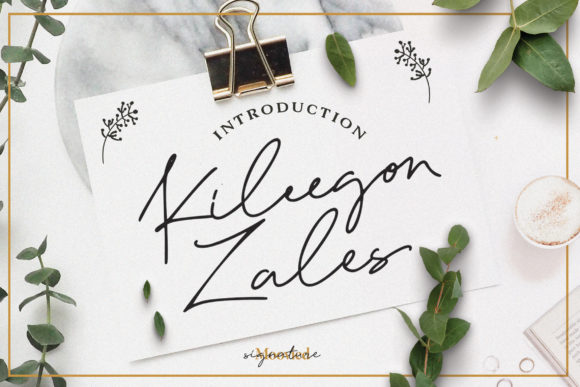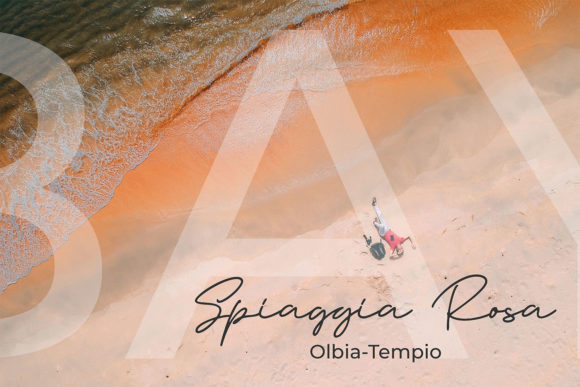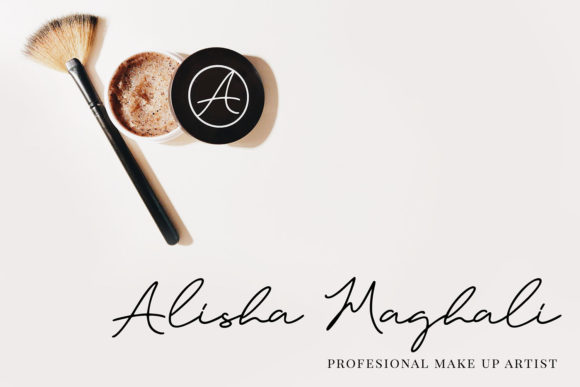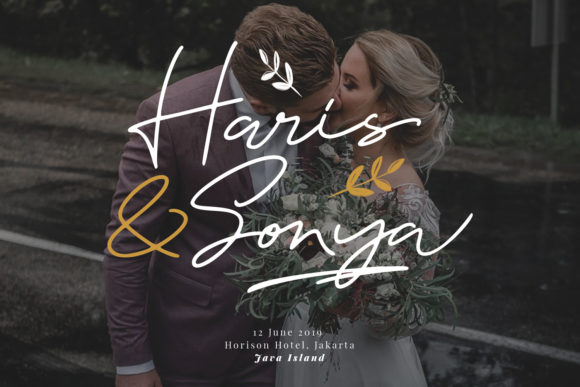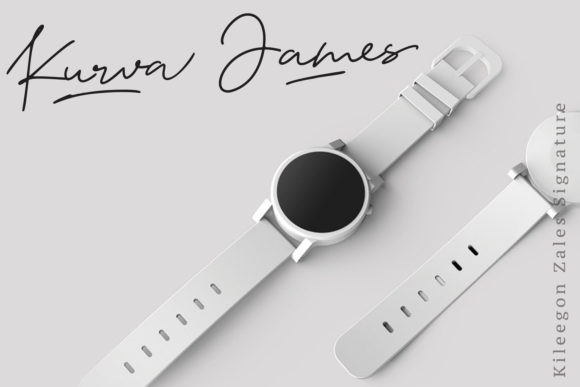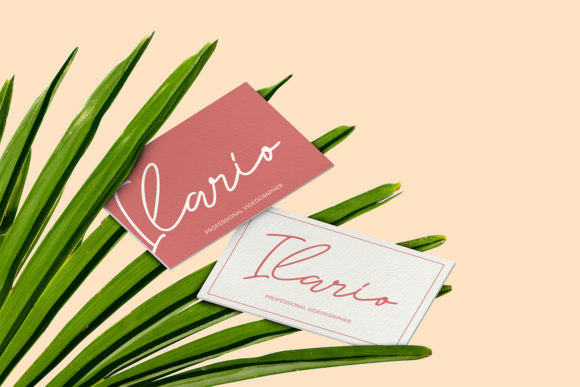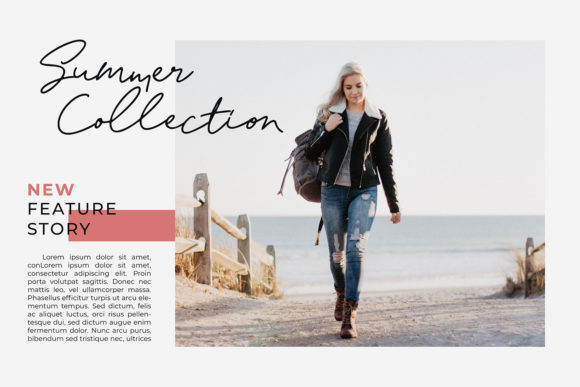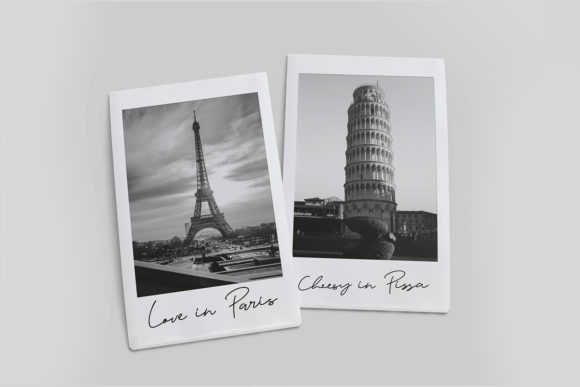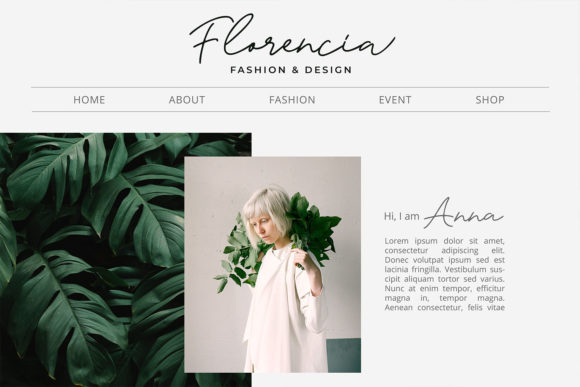
Kileegon Zales Font
About Kileegon Zales Font
Kileegon Zales is a light and modern handwritten font with a charming feel. Get inspired by its unique twist, and turn any design project into a stand out!